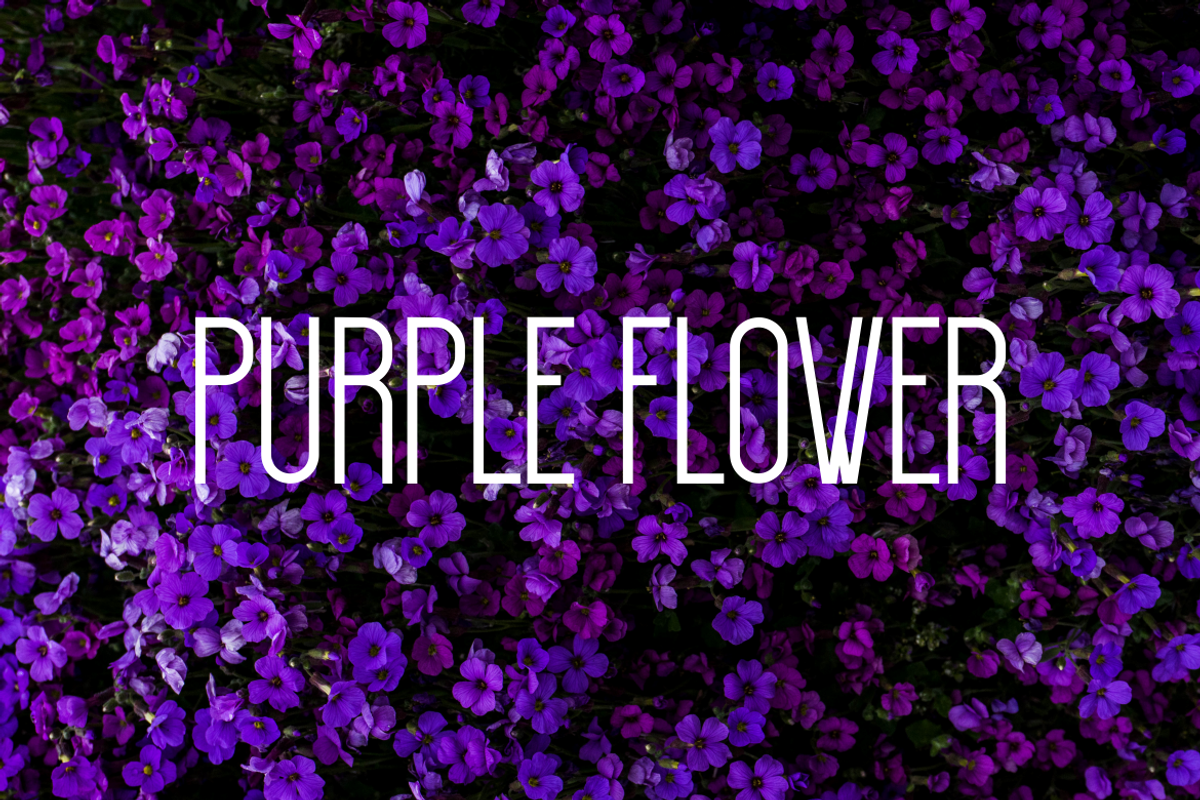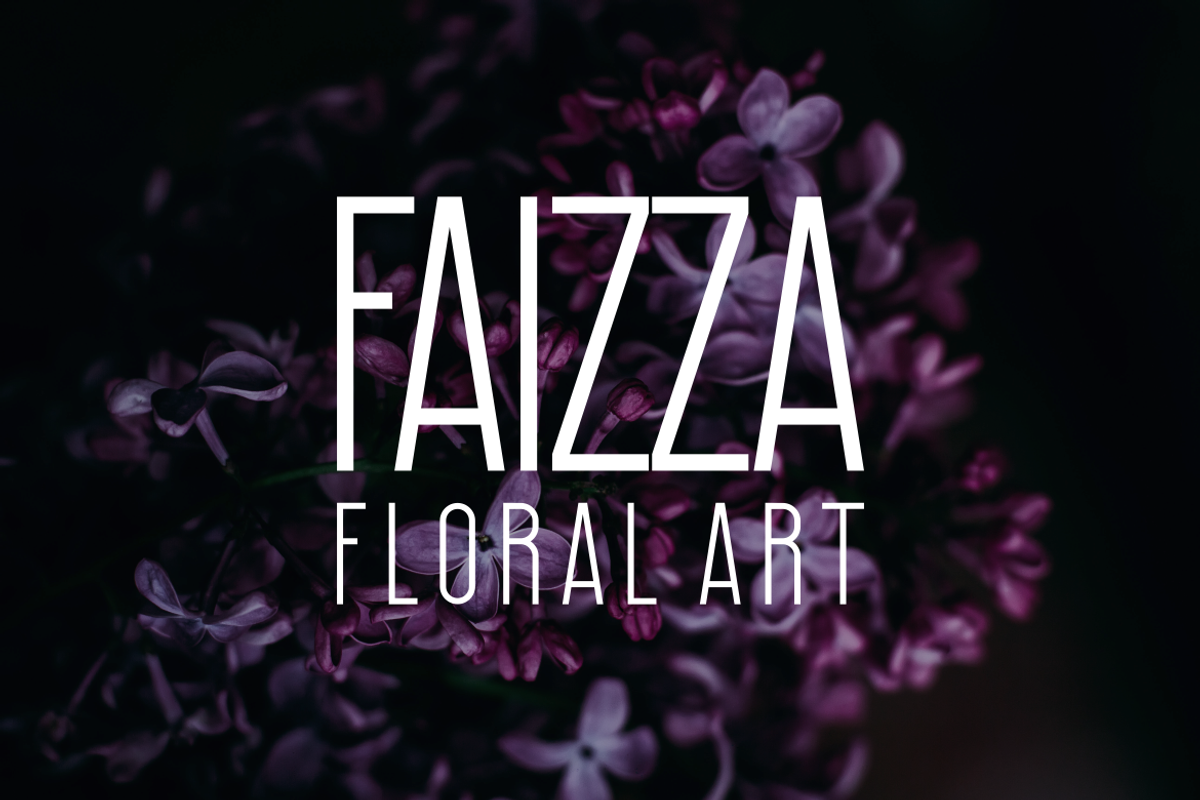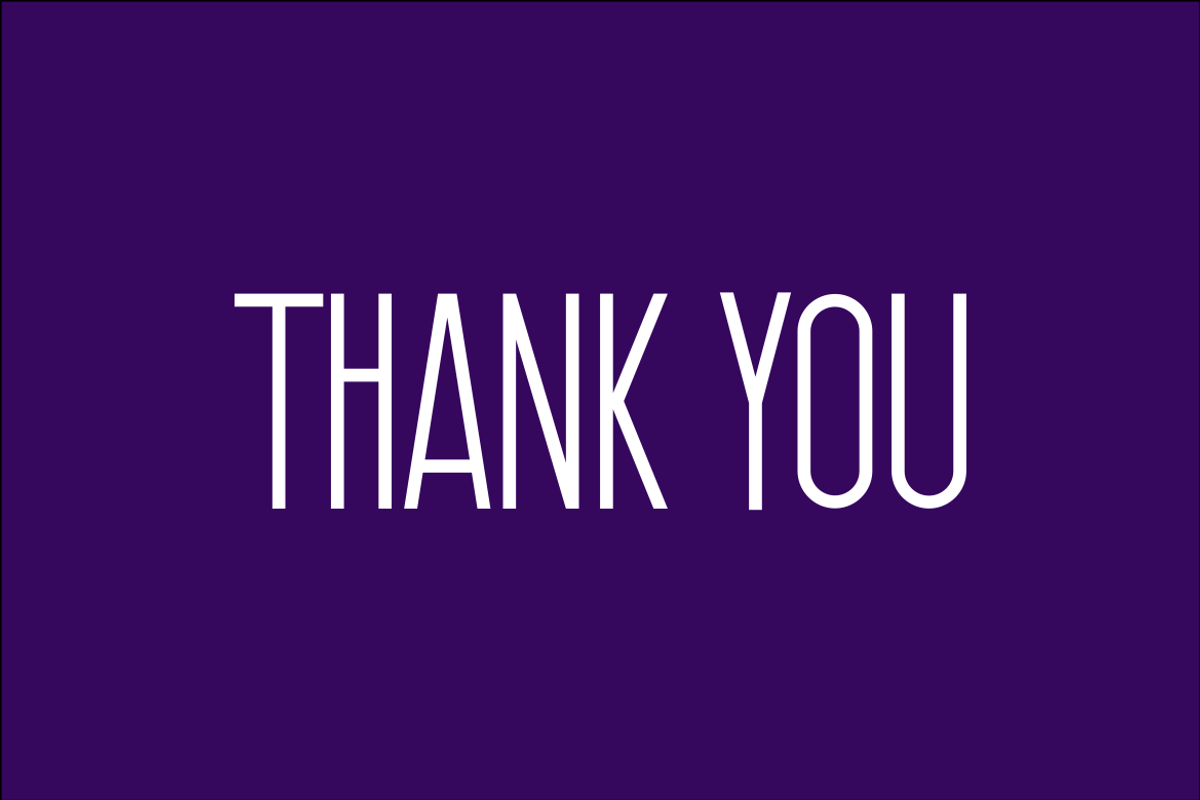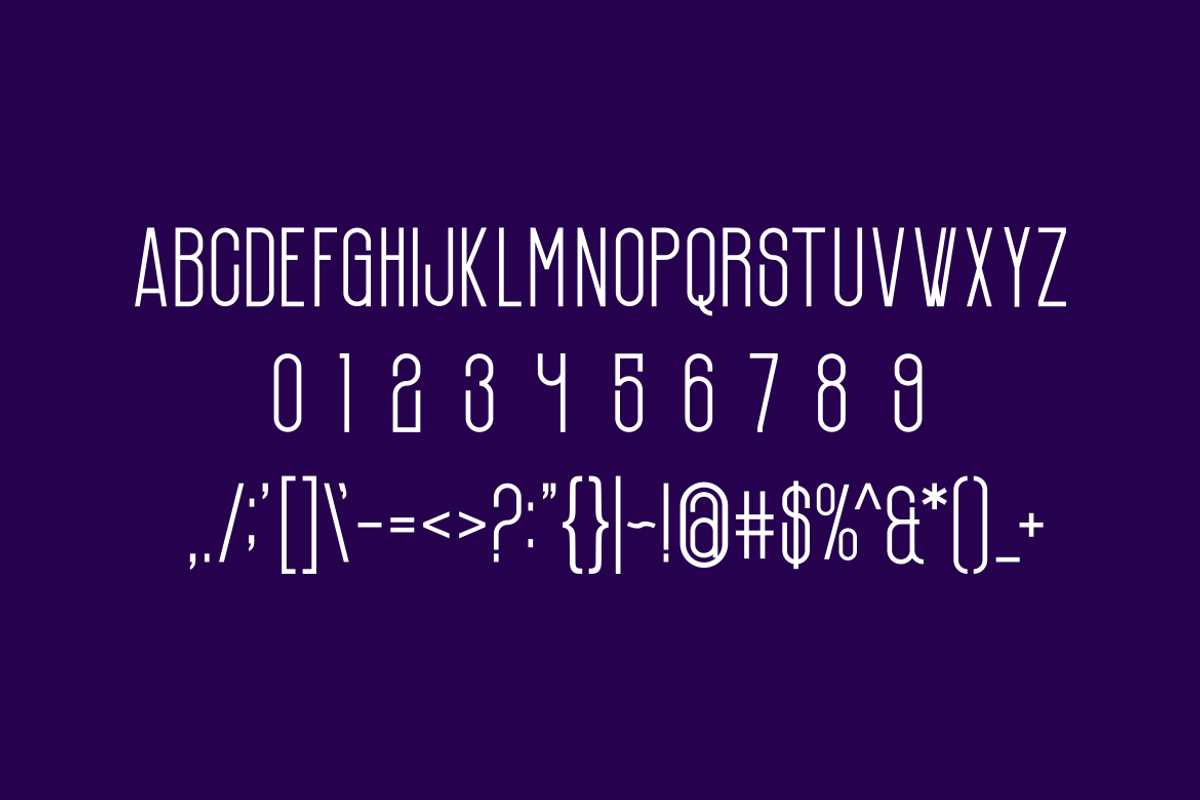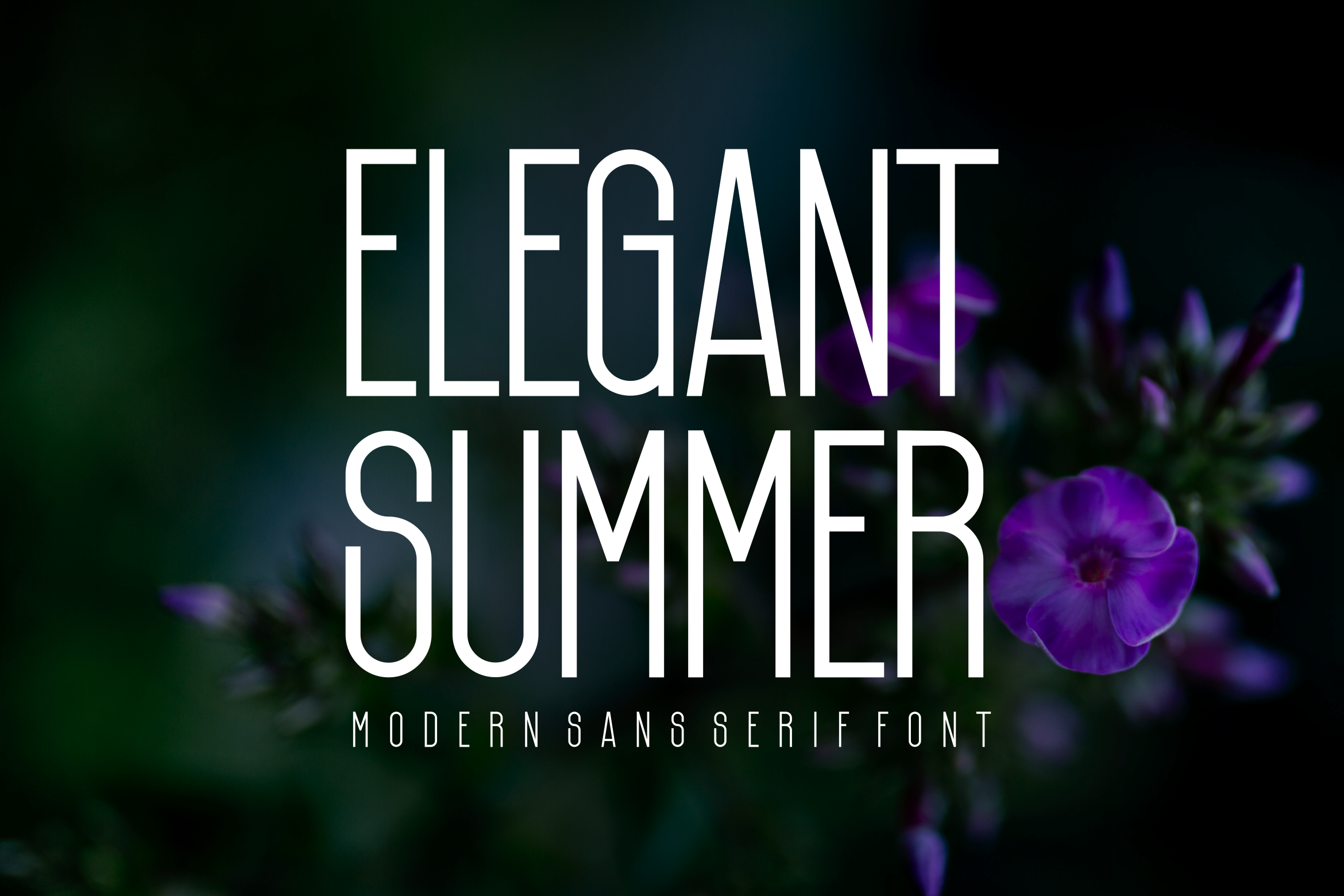
Elegant Summer - Font
- Modern Font is a bold and authentic display font. The font is suitable for any branding project like logo, t-shirt printing,, and many more. outstanding in a wide range of contexts.